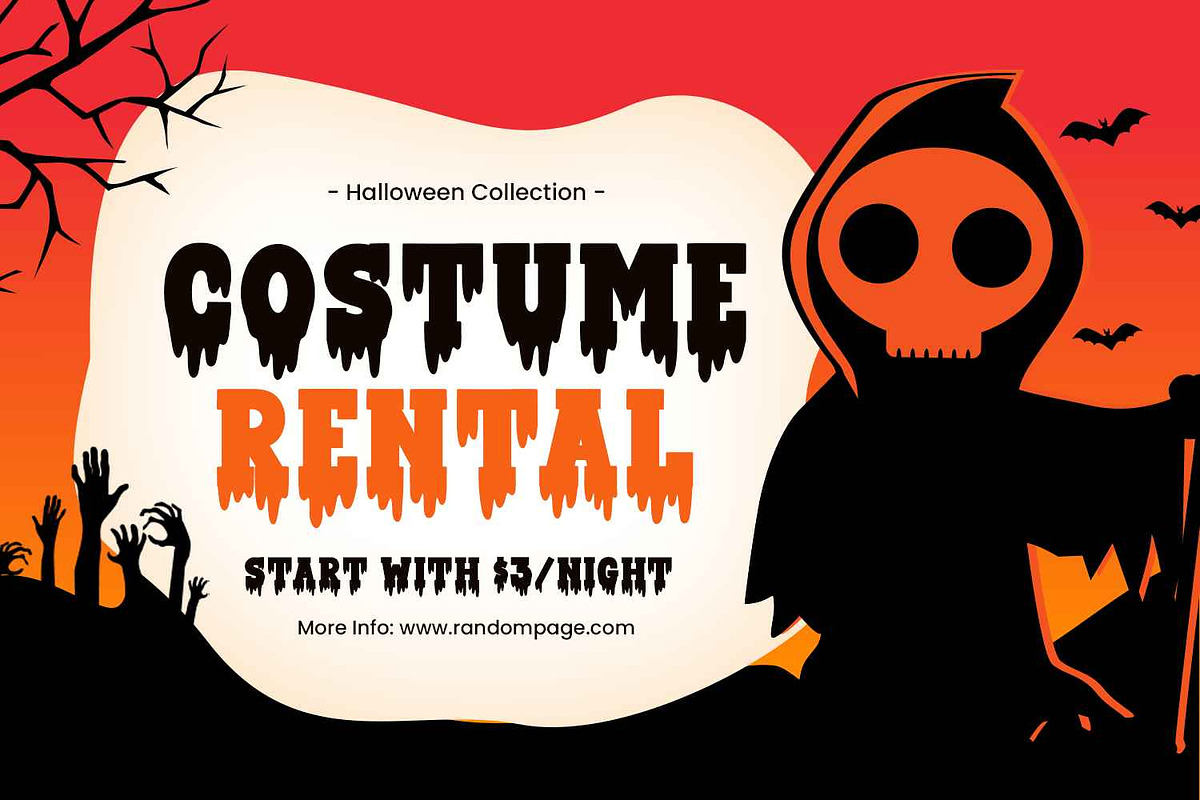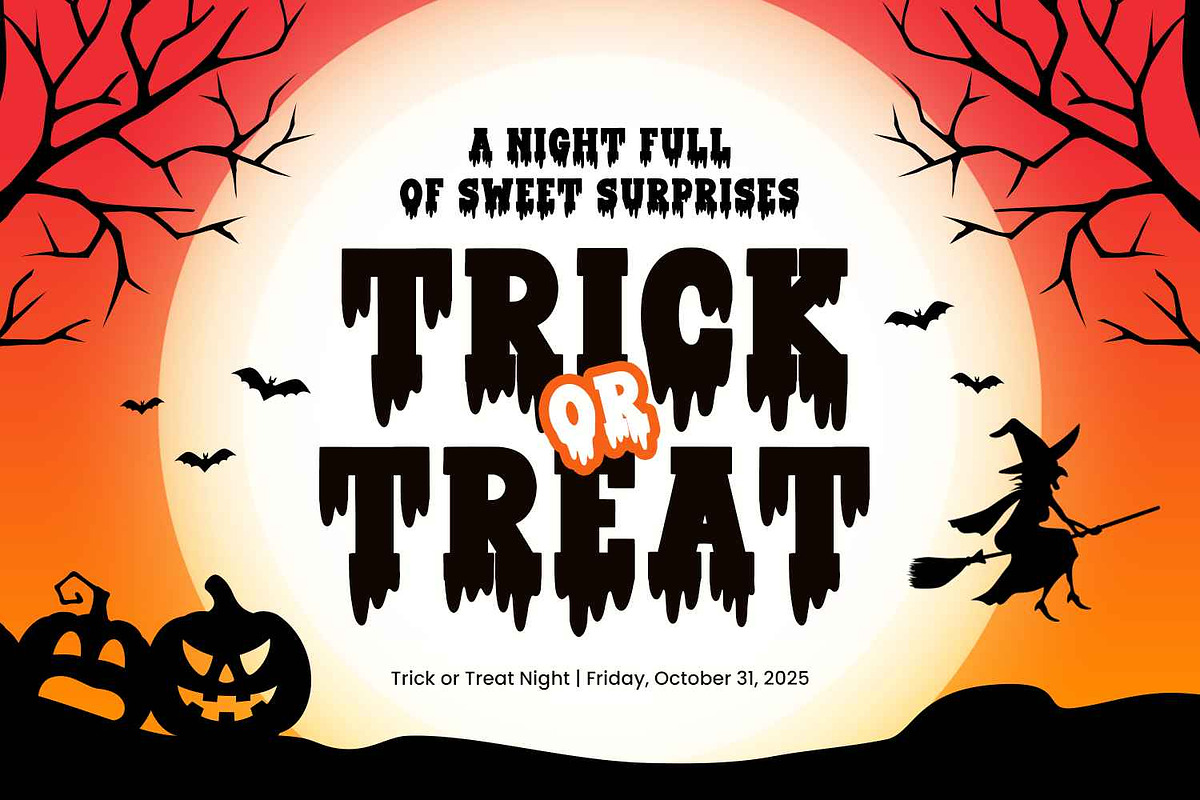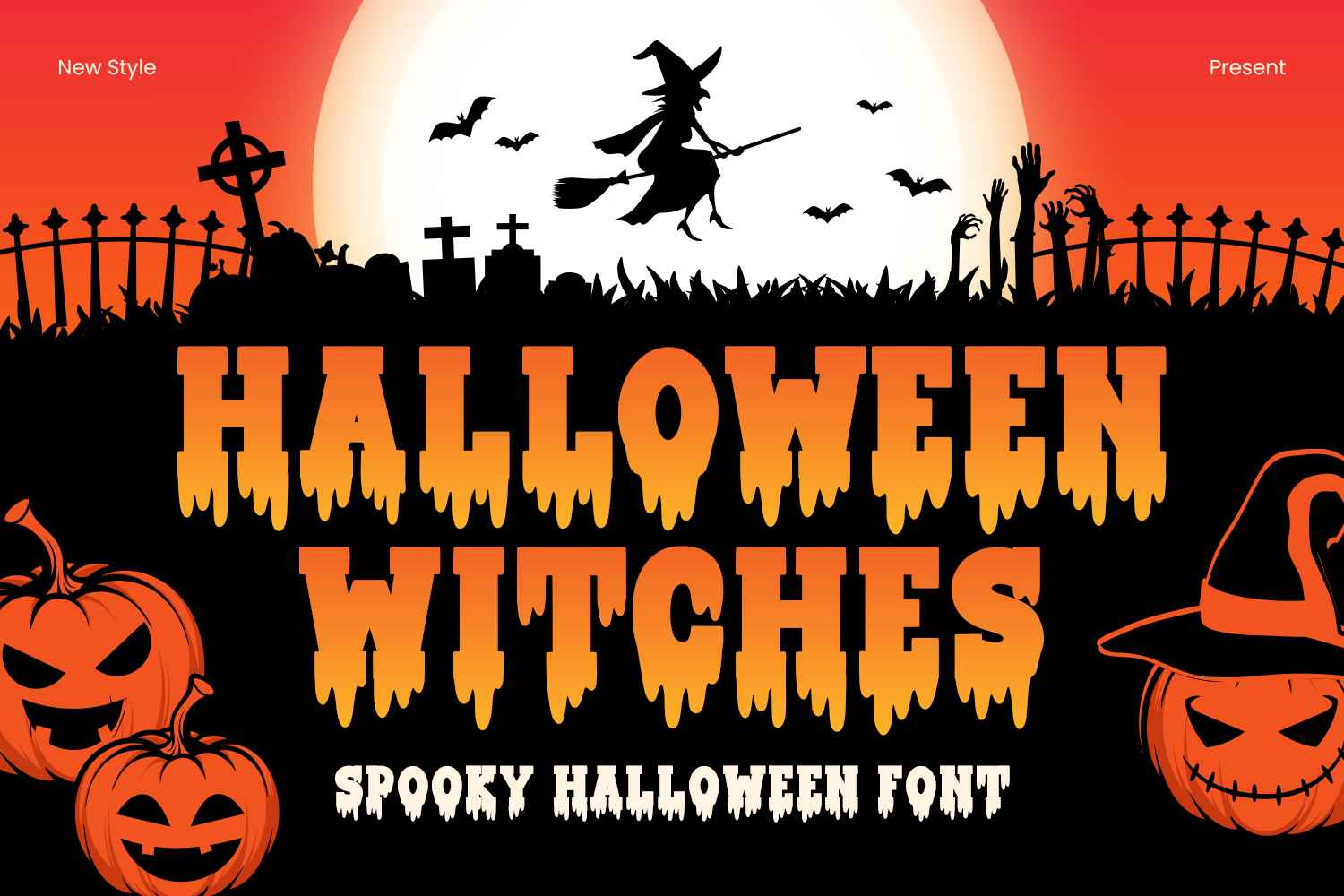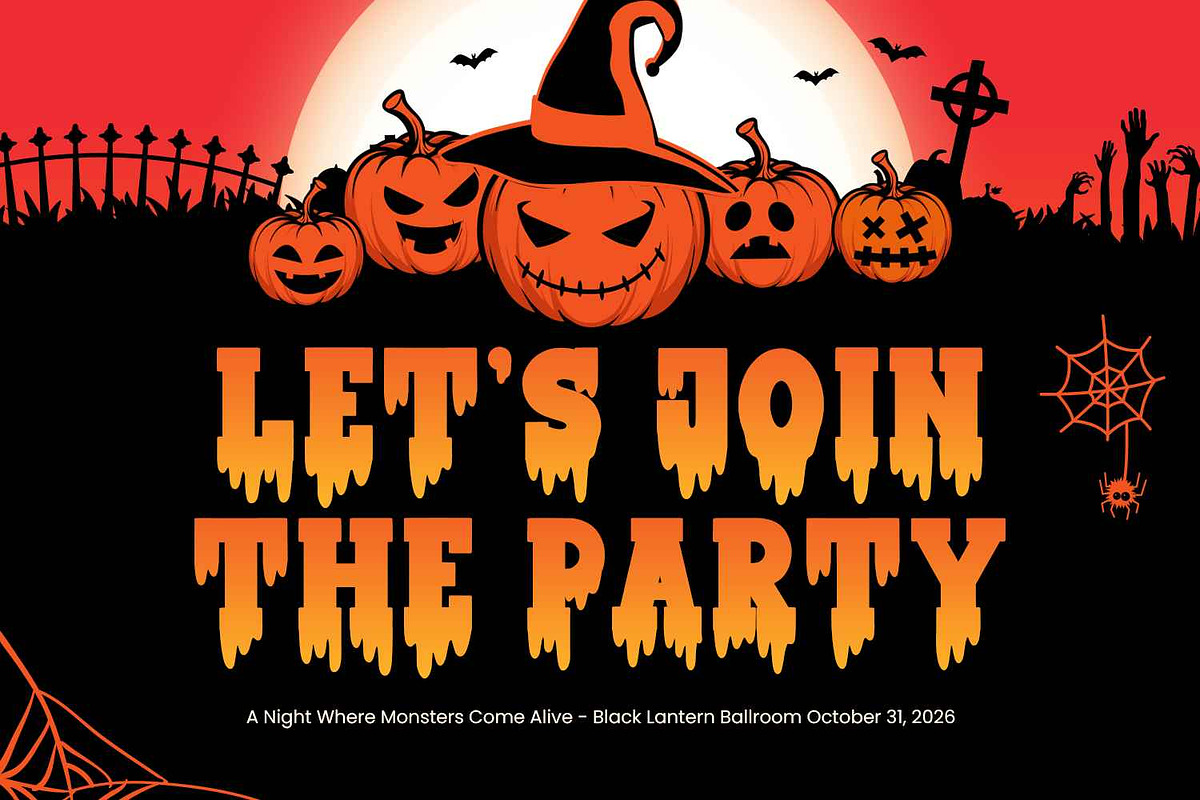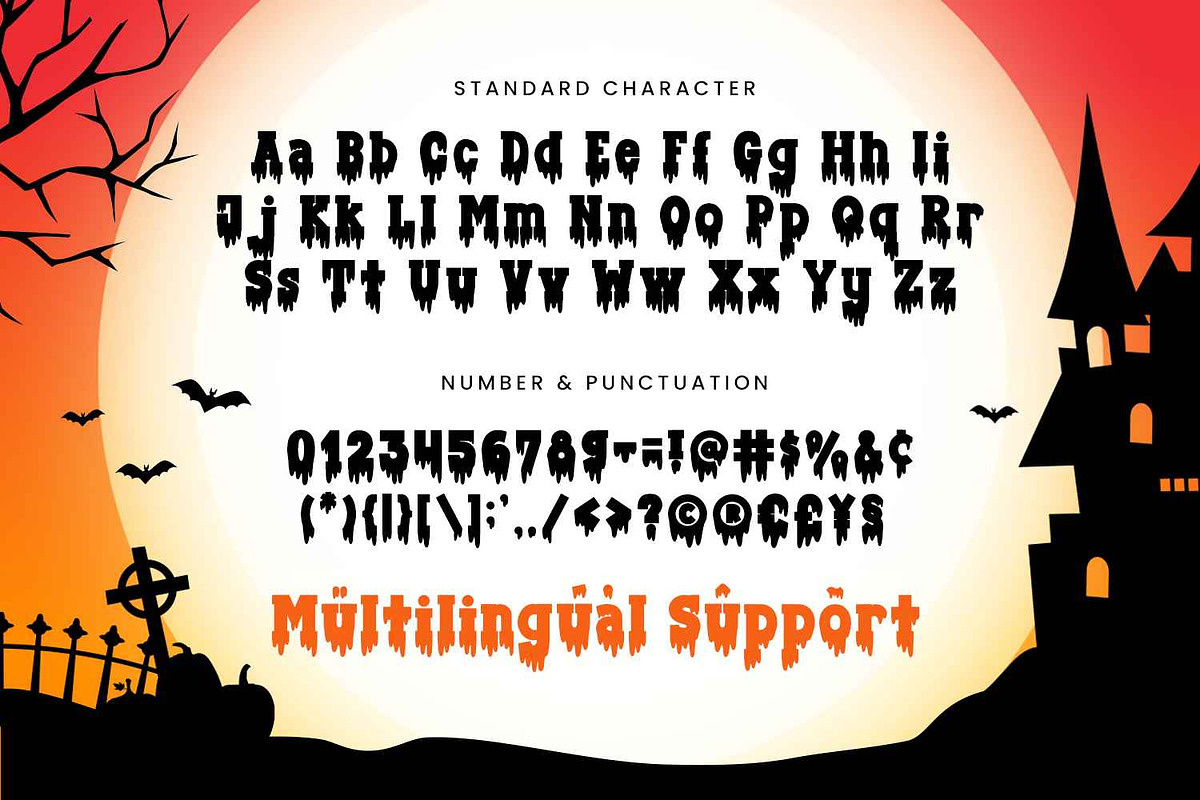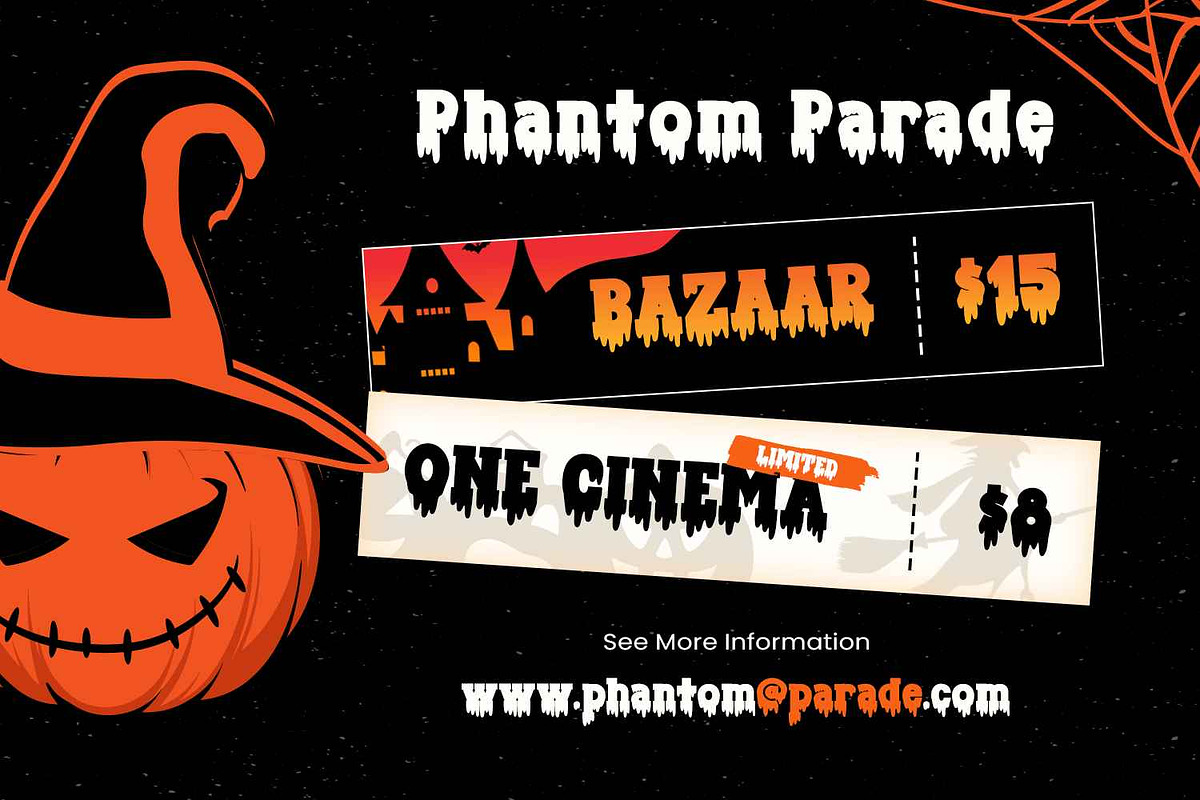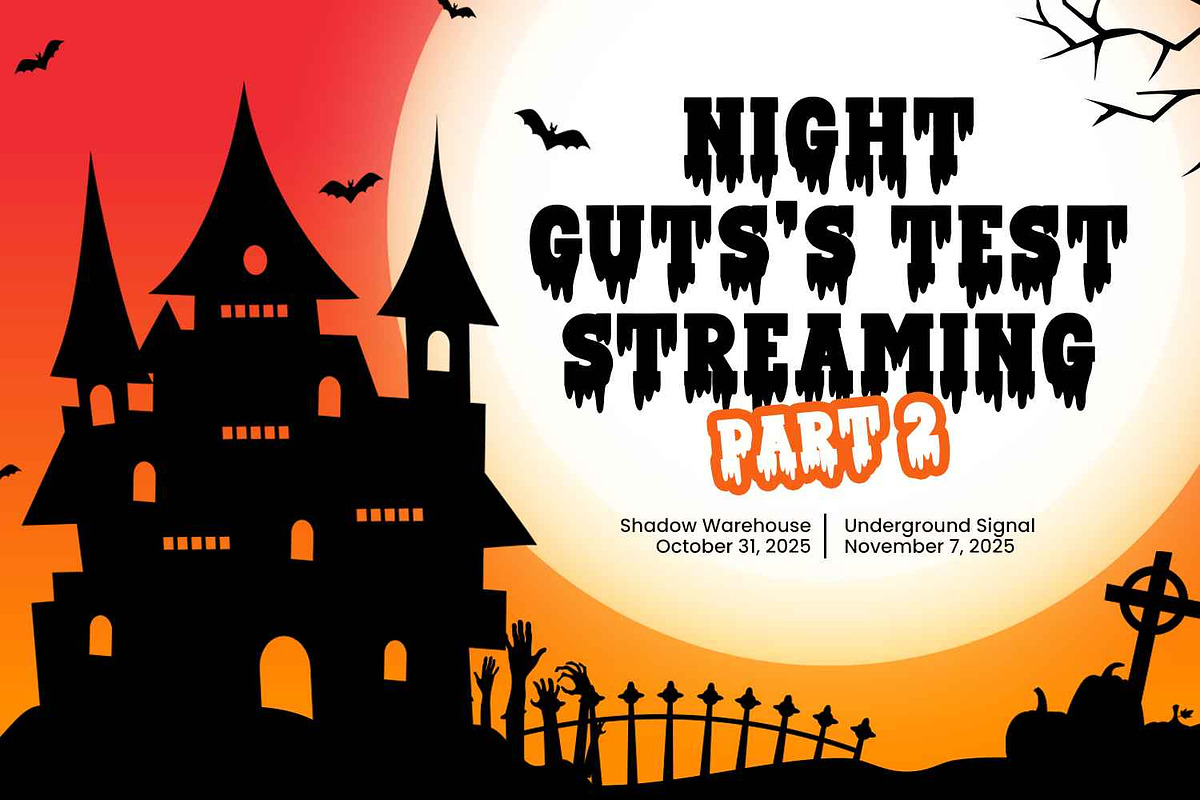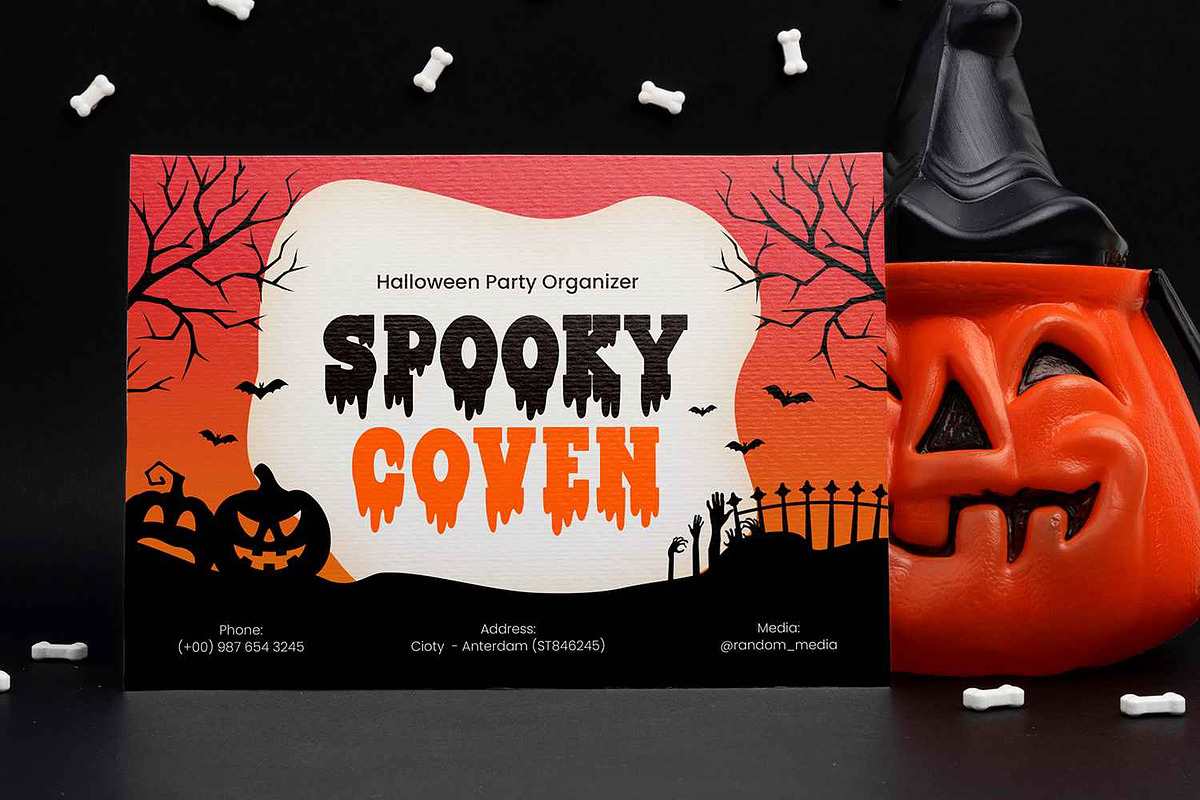
HALLOWEEN WITCHES - Halloween Font
Halloween Witches – Horror Halloween Display Font
Halloween Witches is a terrifying horror display font inspired by dark spells, creepy shadows, mysterious witches, and the eerie atmosphere of Halloween night. Featuring sharp edges, spooky curves, and distinctive letterforms, this horror font creates a dramatic visual impact that instantly captures attention. Its haunting appearance makes it perfect for designers looking for typography with a dark, mysterious, and unforgettable personality.
With its witchy shapes and horror-inspired details, Halloween Witches gives every letter a creepy and supernatural appearance. The combination of sharp forms, eerie curves, and mysterious details creates a striking visual style that works especially well when large typography is the main visual element of a design.
Inspired by haunted houses, dark magic, witches, creepy forests, mysterious shadows, and Halloween nights, Halloween Witches combines a bold display style with a distinctive horror aesthetic. Its strong structure allows the typography to remain visually impactful while the spooky details add character and atmosphere. The result is an eye-catching font that feels eerie, dramatic, mysterious, and haunting.
Halloween Witches is designed for a wide range of creative projects, including Halloween posters, party invitations, haunted house graphics, event promotions, banners, decorations, stickers, merchandise, social media graphics, and seasonal campaigns. Its strong display character makes it especially effective for headlines, titles, logos, signage, and other large-scale typography where visual impact is essential.
With its distinctive witchy horror appearance and dark Halloween aesthetic, Halloween Witches offers a unique alternative to traditional seasonal fonts. Whether you are creating a haunted house poster, Halloween party campaign, spooky invitation, horror-themed artwork, or mysterious seasonal design, this horror display font adds a powerful visual identity to your typography.
Key Features of Halloween Witches Font
Horror Display Style A bold display font inspired by witches, dark magic, haunted environments, and Halloween night.
Witchy & Spooky Letterforms Sharp edges, eerie curves, and mysterious shapes create a distinctive supernatural appearance.
Dark Halloween Aesthetic Perfect for designs inspired by haunted houses, creepy shadows, spells, witches, and horror themes.
Bold Display Letterforms Strong and eye-catching letterforms are designed to stand out in large headlines, titles, and posters.
Seasonal & Creative Style Ideal for Halloween projects, spooky events, crafts, decorations, and themed merchandise.
Multilingual Support Includes extended glyph support for a wider range of international design projects.
Halloween Witches display font works beautifully for:
• Halloween Day Designs • Halloween Party Invitations • Haunted House Graphics • Horror Posters & Advertising • Spooky Event Promotions • Witch & Dark Magic Themes • Halloween Decorations & Signage • Stickers & Craft Projects • Cricut & Cutting Machine Designs • T-Shirt & Merchandise Design • Mugs & Product Designs • Social Media Graphics • Logos & Display Typography • Horror & Entertainment Artwork • Digital & Print Projects
Why Choose Halloween Witches?
Halloween Witches is a distinctive horror display font that combines bold typography with a dark, witchy, and mysterious Halloween aesthetic. Its sharp letterforms and spooky details make it an excellent choice for designers who want typography that feels creepy, dramatic, magical, and unforgettable.
Whether you’re creating Halloween posters, haunted house graphics, party invitations, spooky event designs, merchandise, stickers, decorations, or promotional artwork, Halloween Witches gives your typography a powerful horror identity.